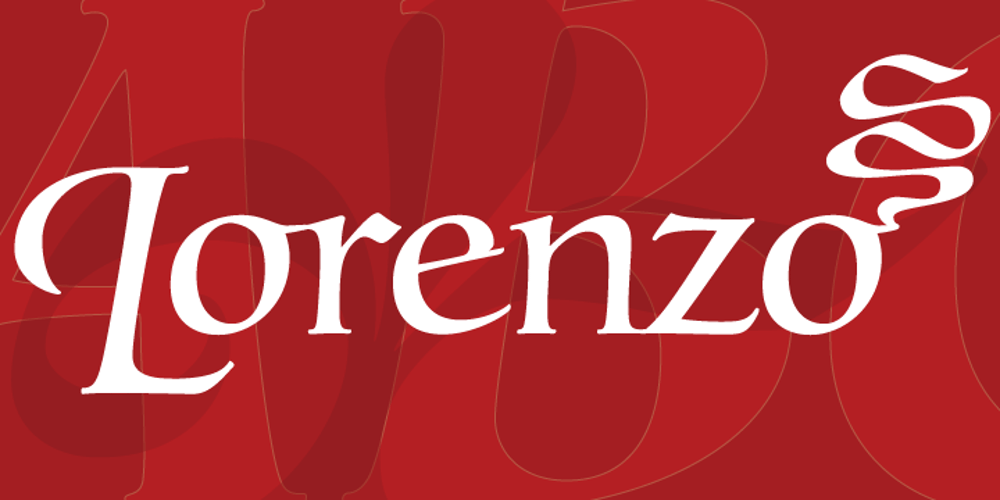
Lorenzo
Lorenzo font
Lorenzo Font Family was designed by Philip Bouwsma and published by Canada Type. Lorenzo contains 12 styles and family package options. The lifetime of Lorenzo de Medici (1449-1492) coincides with the rise of metal type as it displaced broad pen calligraphy for the production of books. This revolution marked the end of formal Western calligraphy, as the industry employed metalworkers who designed type according to geometric measurement while calligraphers were forced to become secretaries who practiced handwriting systems. Renaissance Florence should have witnessed the marriage of calligraphy and typography, just as all the other arts and sciences flourished as classical learning was applied to technical advances; but the metalworkers and geometricians measured, dissected and recast the calligraphic letters by crude indirect methods, and in the end took all the life out of them. Here they languished until digital type has made it possible to render the precise motion of the broad pen stroke into type. Lorenzo is a confluence of many strains from the Middle Ages, brought together within the classical harmony of the capitals. It attempts to bypass metal type, using calligraphic means to achieve the precision of type while retaining the life of the stroke: a classical font that would be familiar to Lorenzo himself as well as to the modern eye. The Lorenzo family comes in four weights, ranging from light to bold. Two sets of italics, one with swashed caps and ascenders, complement each weight. The family boasts extensive language support and an offering of over fifty calligraphic ornaments/flourishes included within the character set.